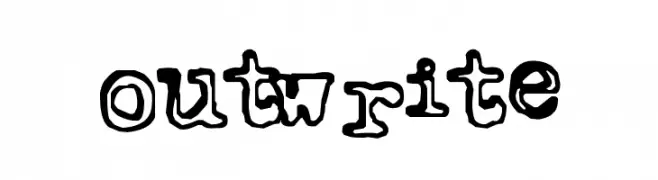
( Fonts by Ruben Prol - www.ipanemagrafica.com )
A whimsical and playful serif font with dynamic strokes and unique characters.
( Fonts by Daniel Gauthier )
A playful, bold font with whimsical, cartoonish letterforms.
( Fonts by Astigmatic One Eye Typographic Institute - Brian J. Bonislawsky - astigmatic.com )
A playful, rounded font with whimsical, decorative elements.
( Fonts by Mr Fisk - Mike Larsson - fontorama.net )
A playful, hand-drawn font with bold, uneven strokes and a whimsical style.
( Fonts by Audrius Skersys - www.extate.lt )
A whimsical, hand-drawn font with playful, irregular letterforms.
( Fonts by Cathy Davies - cathydavies.com )
A bold, playful, hand-drawn font with a whimsical and dynamic style.